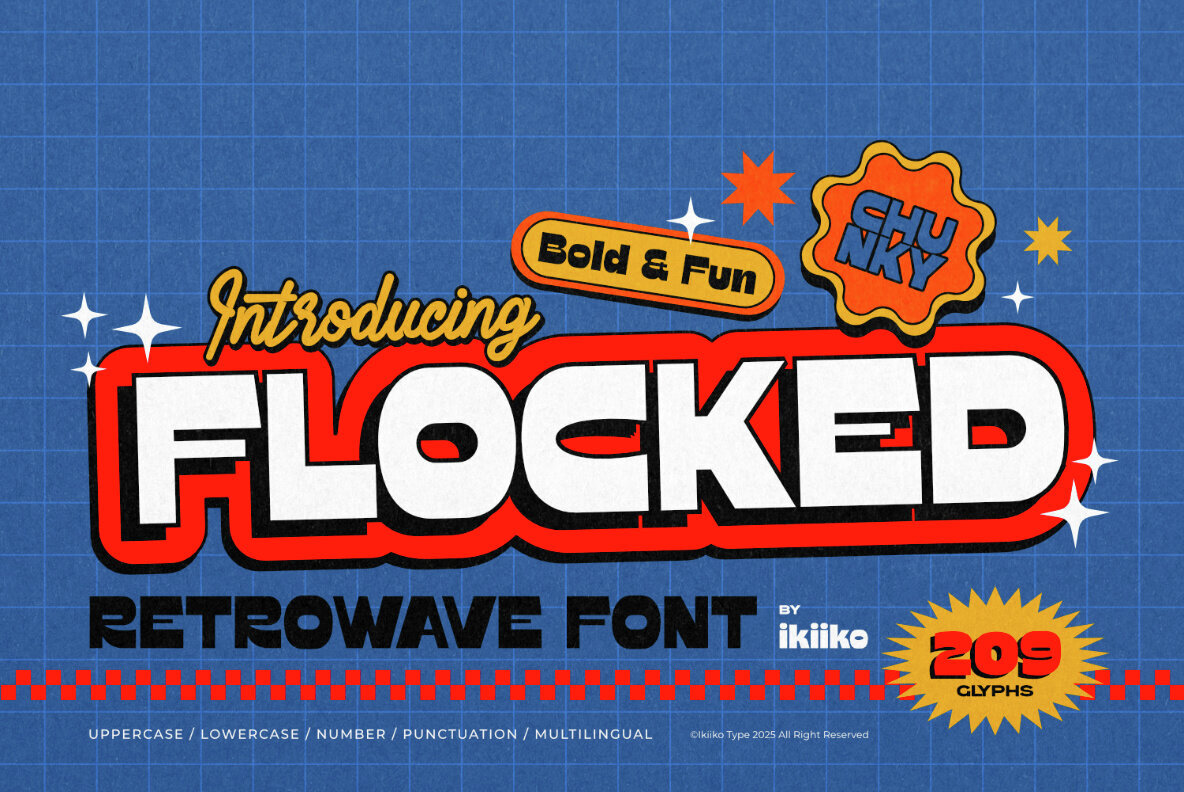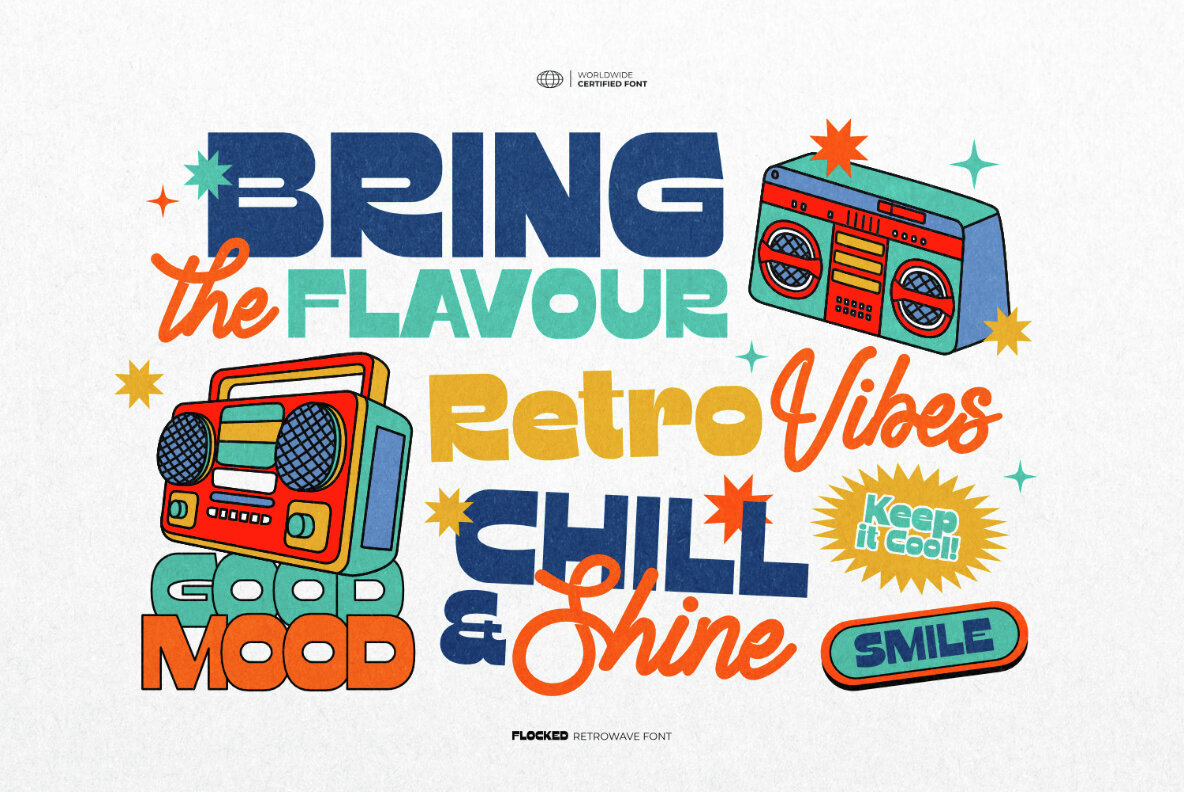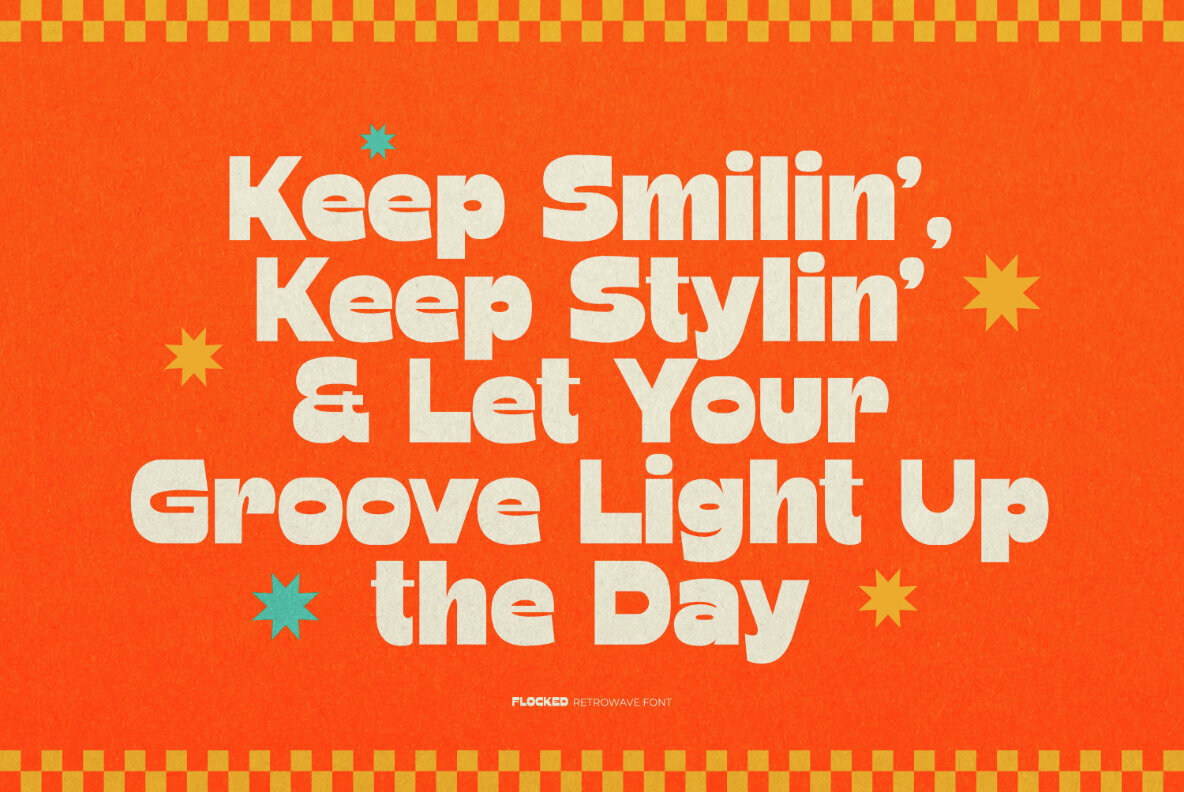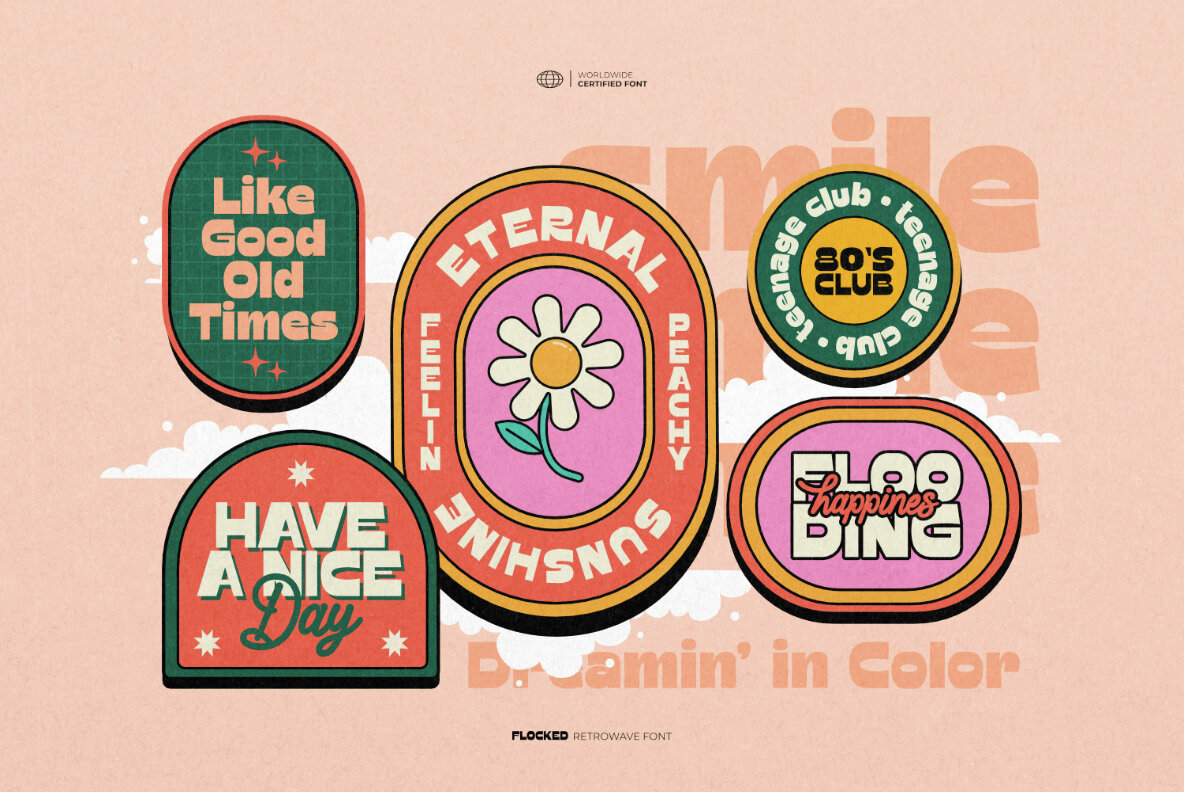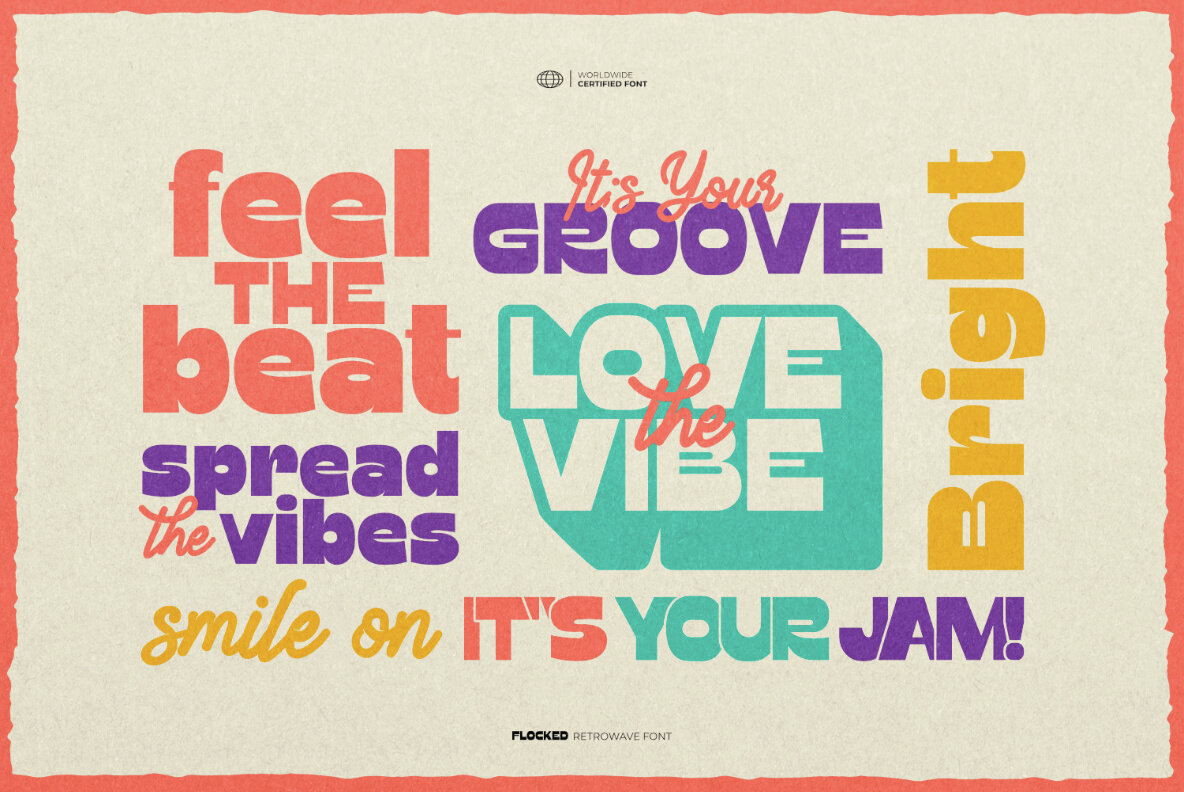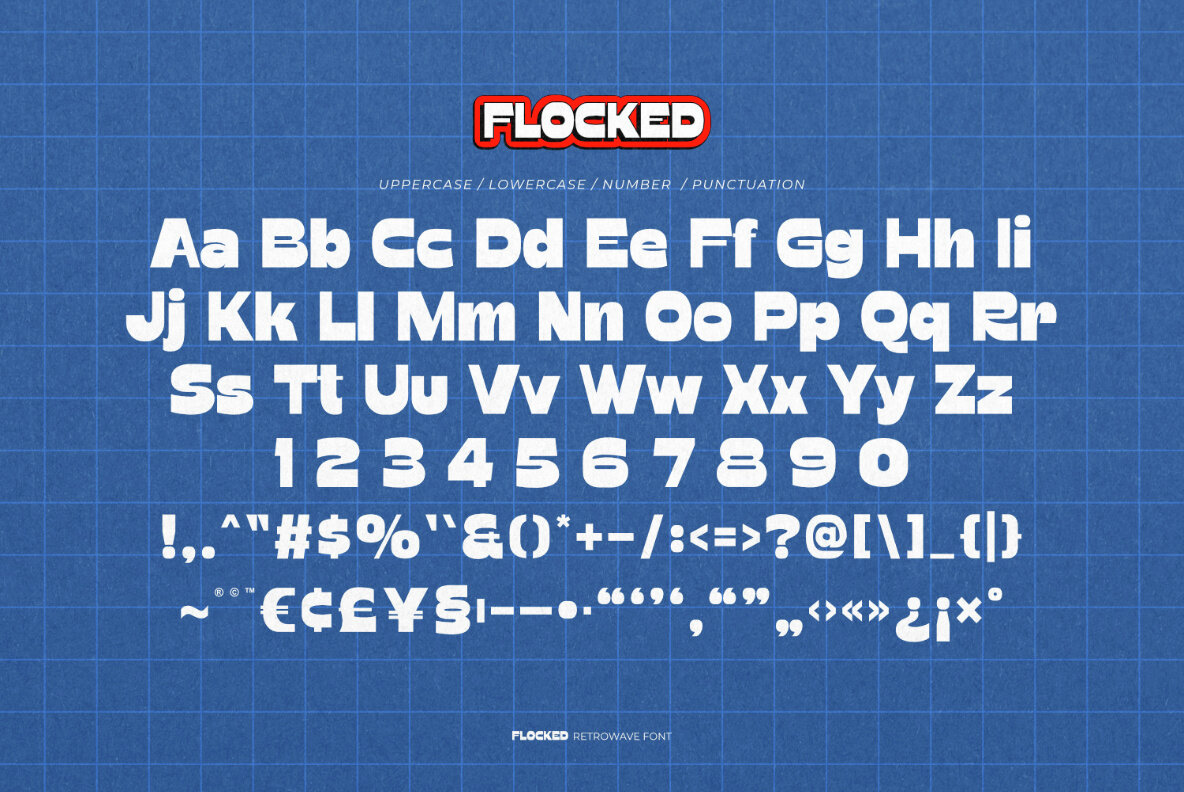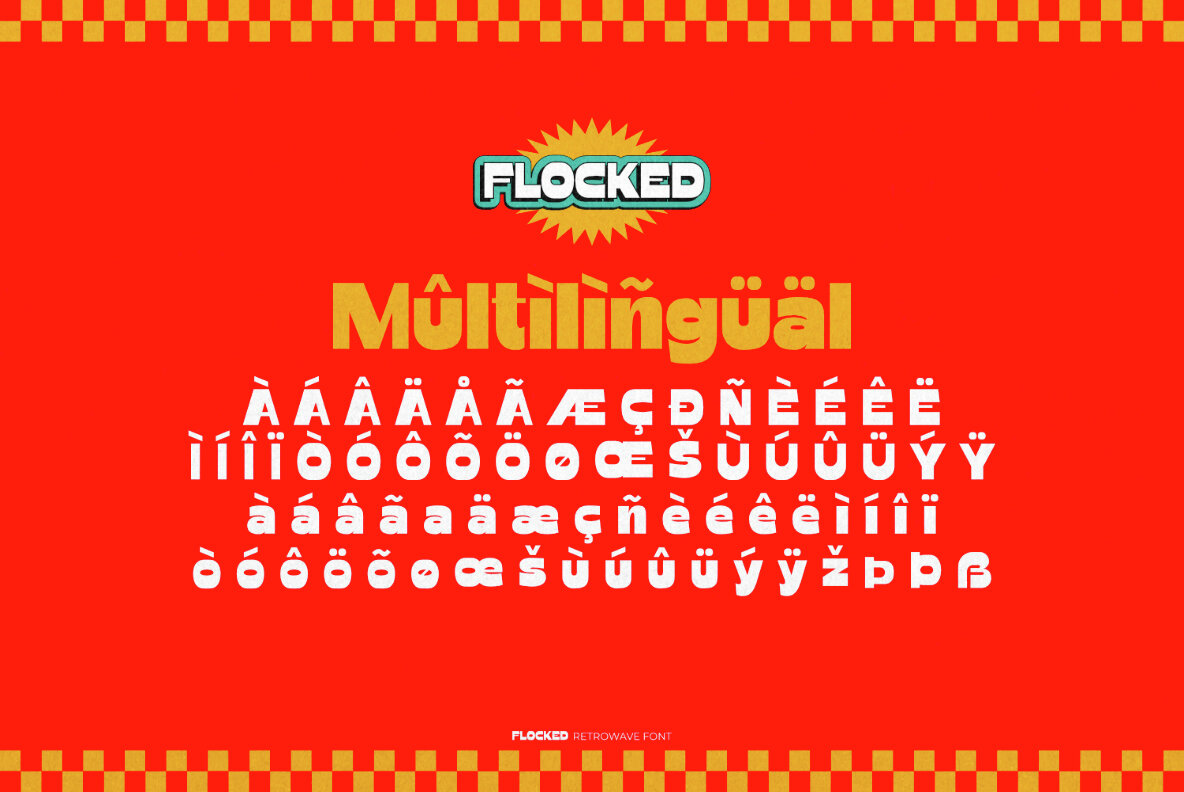
Flocked Font
Flocked
Flocked embraces the spirit of the 1980s with a bold, stylish twist. This sans serif typeface masterfully merges vintage charm with cartoon-like curves, offering both bold and thin styles to suit diverse design needs. Perfect for nostalgic logos, eye-catching posters, or relaxed projects, Flocked exudes dynamic energy, ideal for branding, social media graphics, and retro-themed creations. Whether designing a retro poster, streetwear concept, magazine spread, book cover, or packaging, Flocked infuses an unmistakable 80s flair. Its vibrant lines and dynamic appeal make it suitable for food and beverage labels or any project seeking a chill retro vibe.Flocked: Bold Retrowave Sans Serif